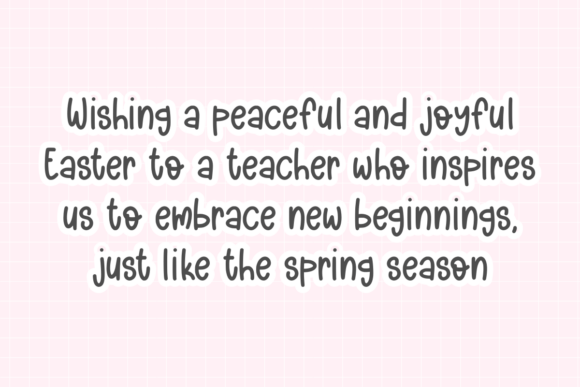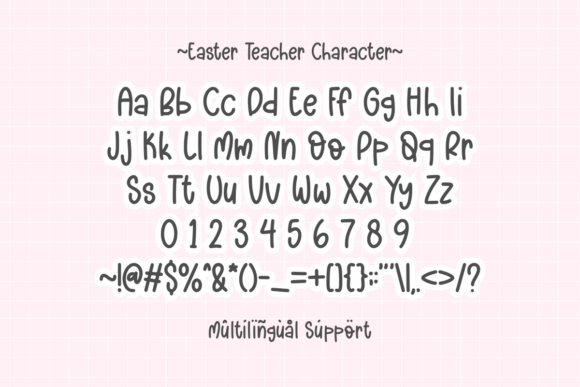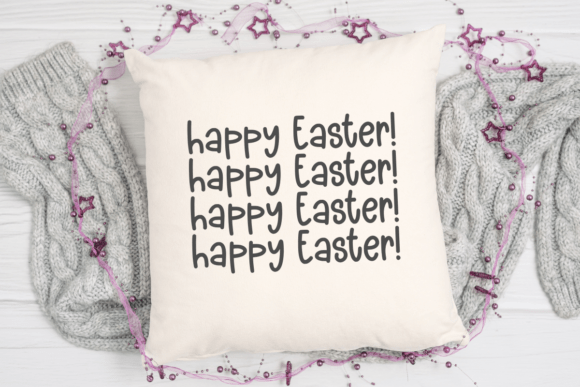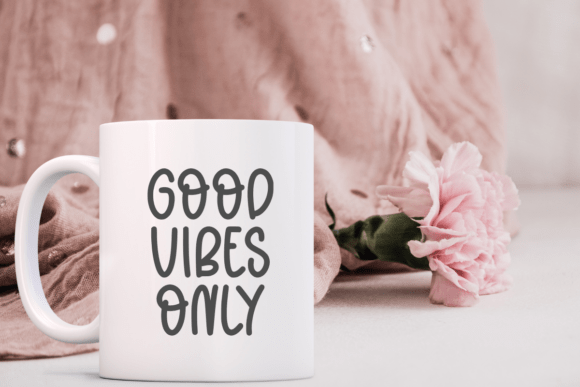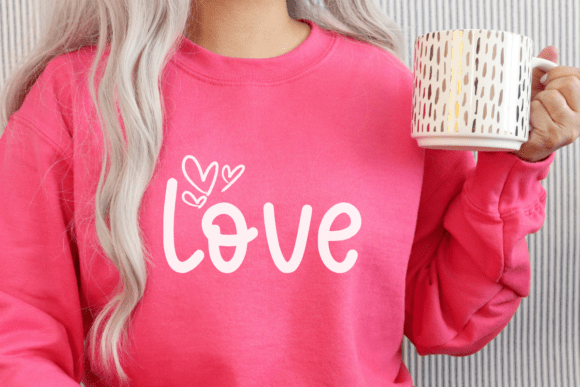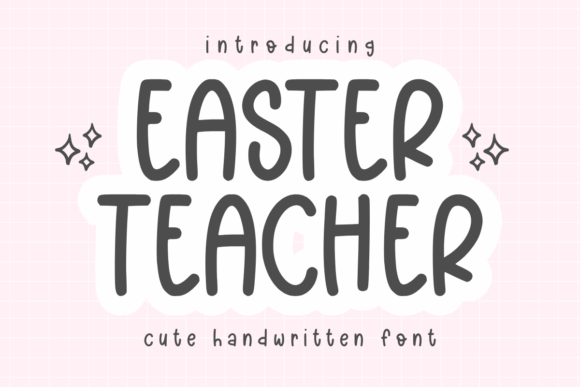
Easter Teacher Font: The Perfect Addition to Your DIY Projects
Are you a creative mom who loves DIY projects, journaling, and Cricut crafts? Do you enjoy making planners, stickers, cards, and quotes for special occasions? Look no further than the Easter Teacher Font, a cute and playful handwritten font that’s perfect for all your crafting needs.
What is Easter Teacher Font?
Easter Teacher Font is a unique and charming handwritten font that’s designed to add a personal touch to your DIY projects. Its playful and whimsical style makes it ideal for crafting Easter-themed planners, stickers, cards, and quotes. The font is also versatile enough to be used for other creative projects, such as journaling, scrapbooking, and Cricut crafts.
Features of Easter Teacher Font
- Cute and Playful Design: Easter Teacher Font features a cute and playful design that’s perfect for Easter-themed projects. The font’s handwritten style gives it a personal and unique touch that’s sure to make your projects stand out.
- Handwritten Style: The font’s handwritten style makes it look like it was written by hand, adding a personal touch to your projects.
- Perfect for DIY Projects: Easter Teacher Font is ideal for DIY projects, such as planners, stickers, cards, and quotes. It’s also perfect for journaling, scrapbooking, and Cricut crafts.
- Compatible with Cricut: The font is compatible with Cricut machines, making it easy to cut out letters and designs for your projects.
Why Do Designers and Crafters Love Easter Teacher Font?
Designers and crafters love Easter Teacher Font for its unique and playful design. The font’s handwritten style gives it a personal touch that’s hard to find in digital fonts. Additionally, the font’s versatility makes it perfect for a wide range of projects, from Easter-themed planners and stickers to journaling and Cricut crafts.
Ideas for Using Easter Teacher Font
Here are some ideas for using Easter Teacher Font in your DIY projects:
- Easter-themed Planners: Use Easter Teacher Font to create Easter-themed planners that are perfect for tracking your holiday plans and activities.
- Stickers and Cards: Use the font to create cute and playful stickers and cards for Easter.
- Journaling: Use Easter Teacher Font to add a personal touch to your journaling projects.
- Cricut Crafts: Use the font to create custom letters and designs for your Cricut crafts.
- Quotes and Signs: Use the font to create cute and playful quotes and signs for Easter.
Tips for Using Easter Teacher Font
Here are some tips for using Easter Teacher Font in your DIY projects:
- Experiment with Different Sizes: Experiment with different font sizes to find the perfect size for your project.
- Pair with Other Fonts: Pair Easter Teacher Font with other fonts to create a unique and interesting design.
- Use in Combination with Images: Use the font in combination with images to create a visually appealing design.
- Make it Personal: Use the font to add a personal touch to your projects by incorporating your name or special message.
Easter Teacher Font is a cute and playful handwritten font that’s perfect for DIY projects, journaling, and Cricut crafts. Its unique and whimsical design makes it ideal for Easter-themed planners, stickers, cards, and quotes. With its versatility and compatibility with Cricut machines, Easter Teacher Font is a must-have for creative moms who love DIY projects.